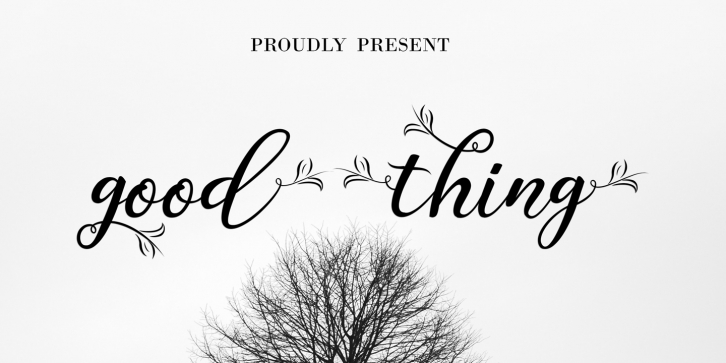
Good thing is a vintage inspired calligraphy script font, perfect for that elegant touch needed for logos, wedding invitations, modern websites, greeting cards, and more! This font is PUA encoded which means you can access all of the glyphs and swashes with ease!